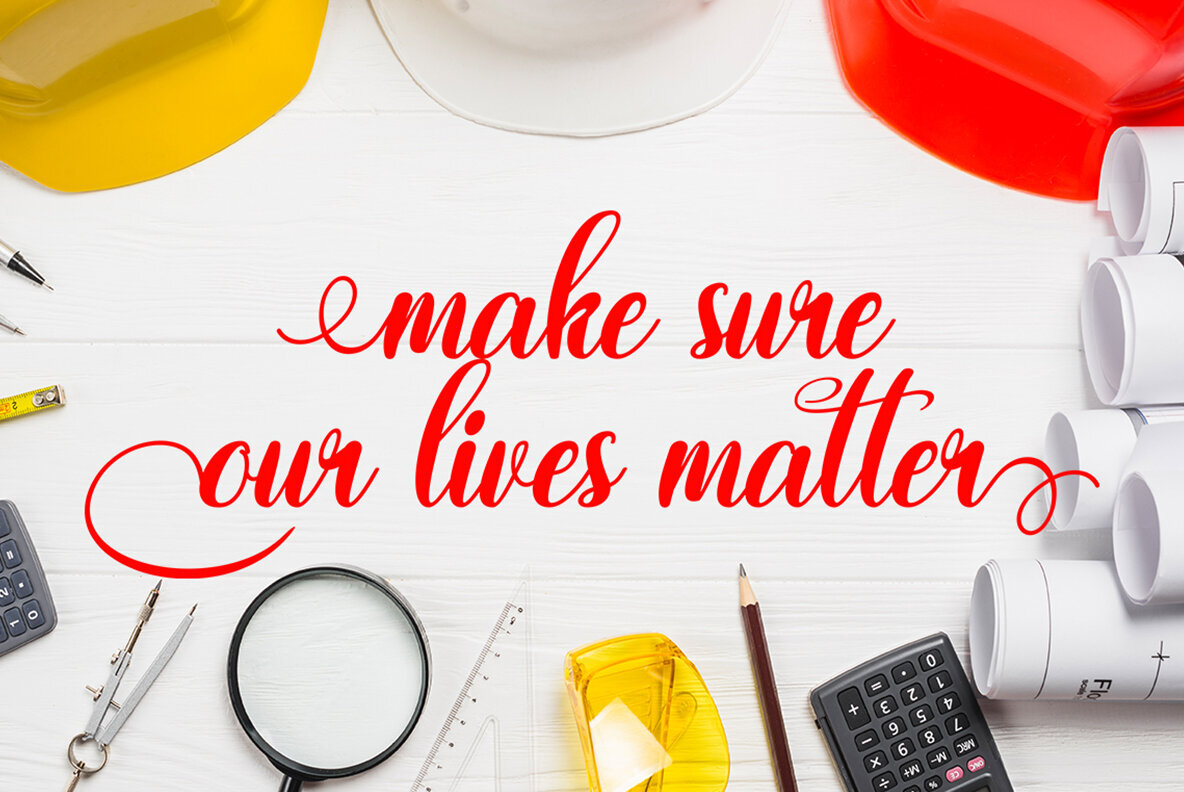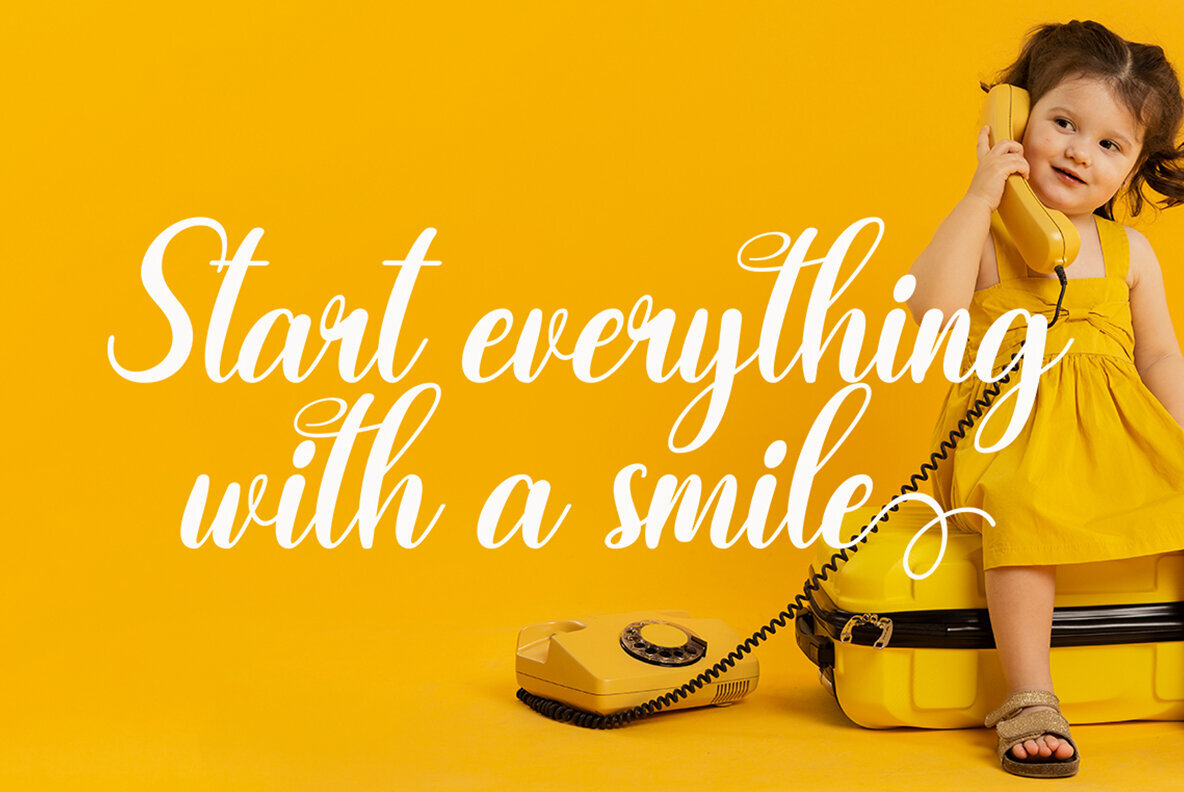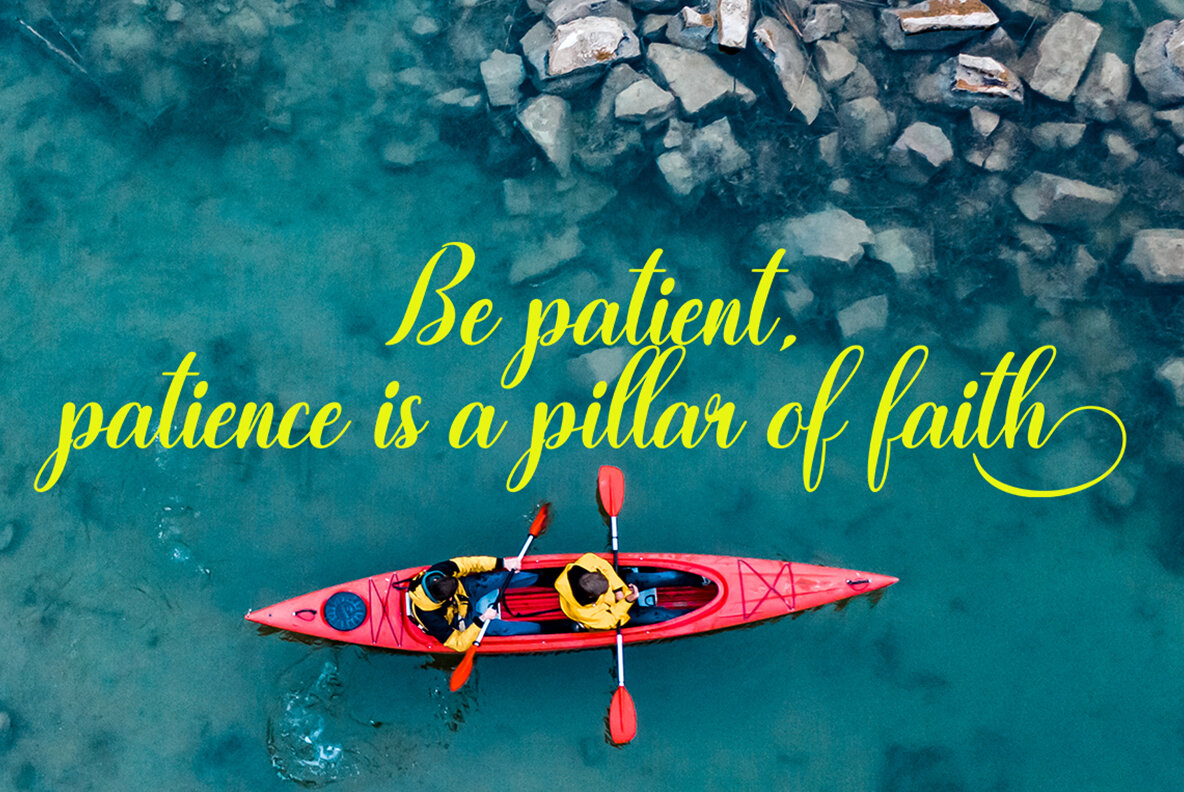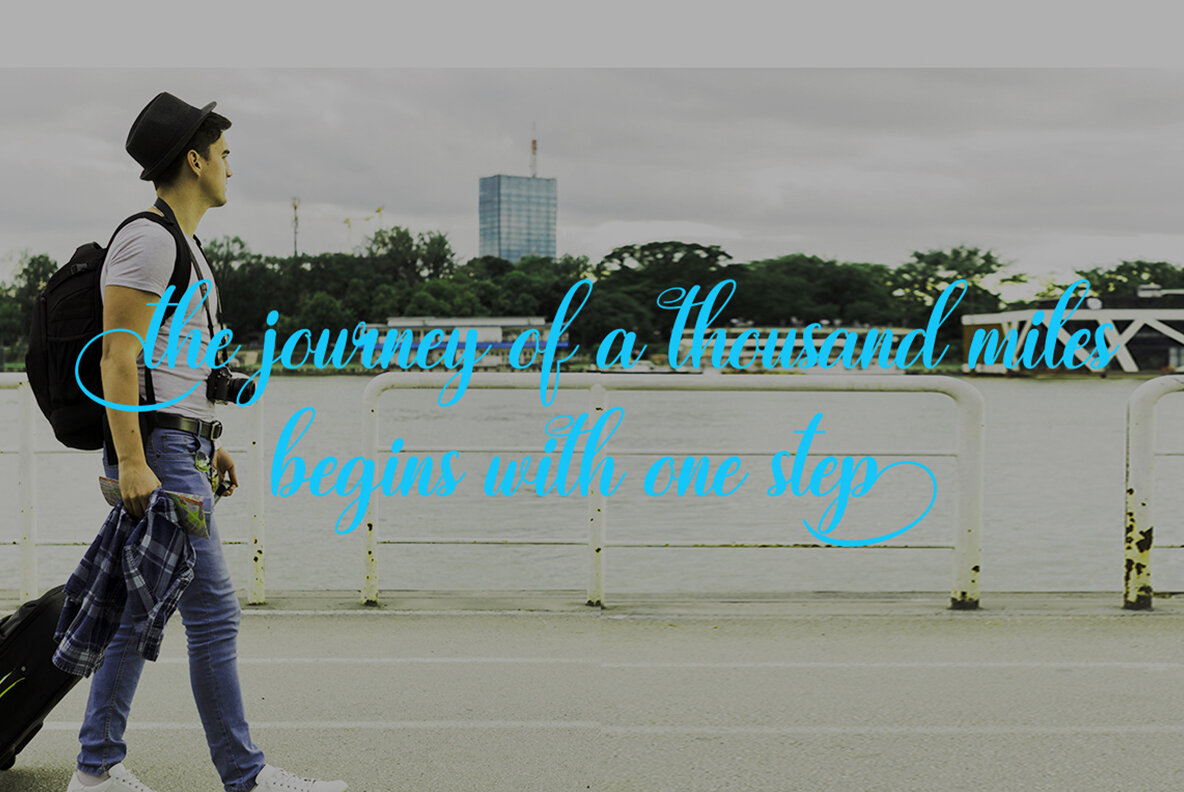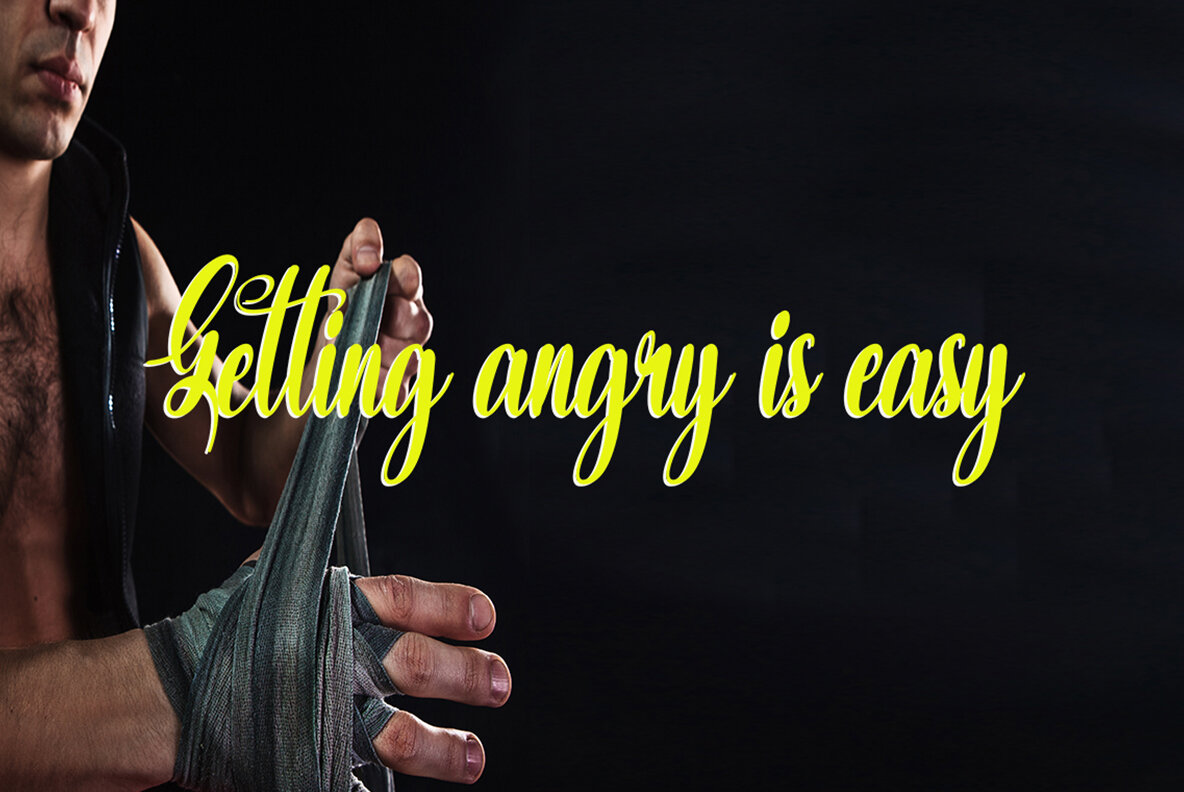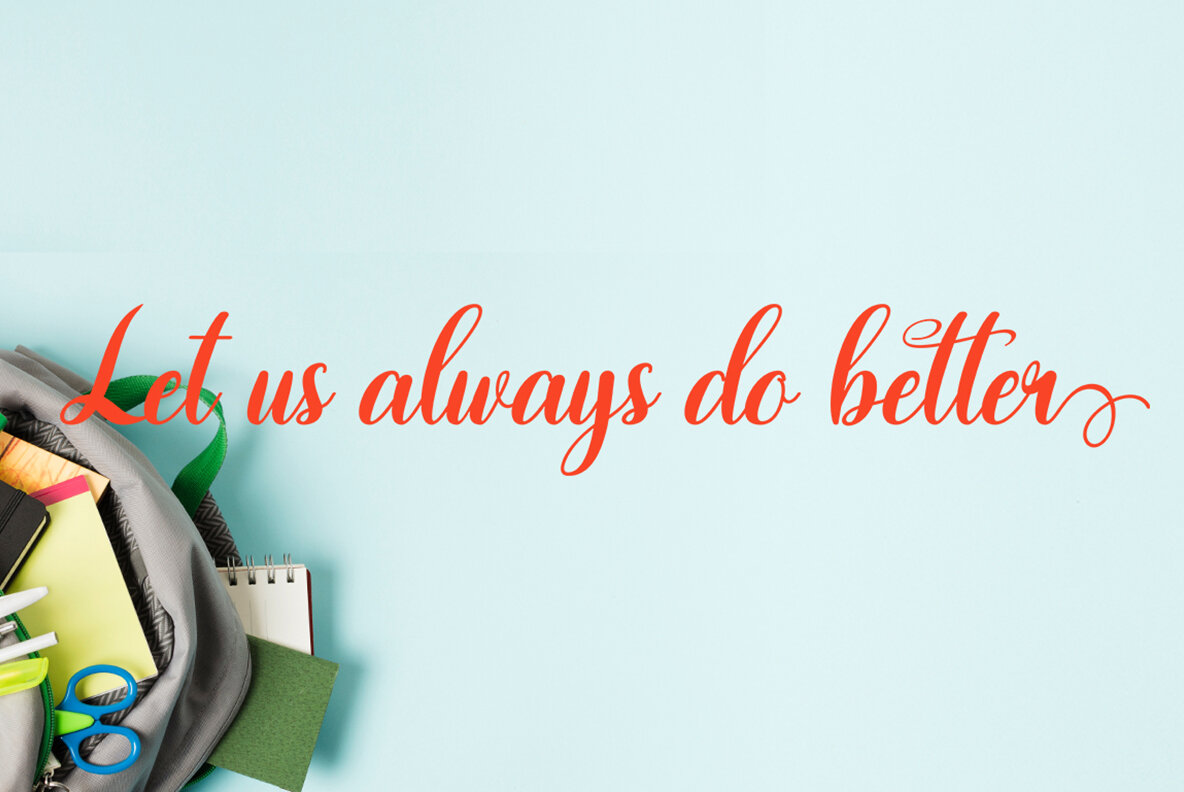
This elegant script font exudes sophistication and class, making it perfect for wedding invitations, luxurious branding, romantic designs, and personalized projects. With its flowing and ornate curves, it's ideal for creating a touch of elegance and exclusivity in any design.